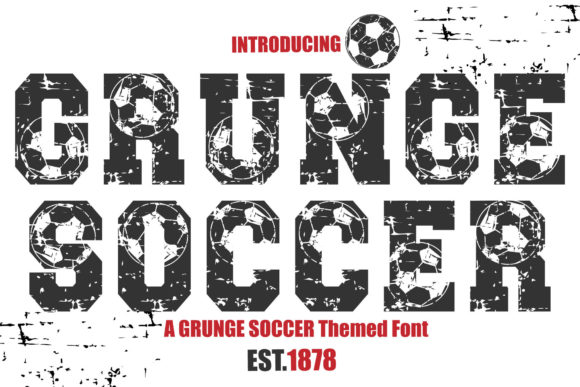
Introducing Grunge Soccer Font, the ultimate choice for all your sports-related designs! Created by the talented KtwoP, this bold and assertive display font is here to elevate your creative projects to new heights. With its sharp and cool appearance, Grunge Soccer Font exudes power and passion, capturing the essence of the game.
When it comes to designing banners, posters, or any sports-related graphics, you deserve nothing but the best. That's where Grunge Soccer Font shines. Its captivating and eye-catching appeal is guaranteed to grab attention and leave a lasting impression on your audience. Let your message roar with intensity as this font brings your words to life.
Unleash your creativity with Grunge Soccer Font and explore its endless possibilities. Whether you're working on a football championship poster, a basketball team's merchandise, or a soccer-themed website, this font has got you covered. Its versatility allows you to experiment with different layouts, sizes, and colors, ensuring each design stands out from the crowd.
But what truly sets Grunge Soccer Font apart is its ability to evoke emotions. As soon as you lay eyes on it, you can almost hear the crowd cheering, feel the adrenaline rush, and sense the competitive spirit. This font encapsulates the energy and excitement of sports, making it the perfect choice to ignite enthusiasm in your audience.
With its extensive collection of characters, Grunge Soccer Font offers you the freedom to personalize your designs. From uppercase letters to numerals and punctuations, this font provides everything you need to convey your message effectively. Let your creativity flow as you experiment with different letter combinations and create stunning compositions that captivate and engage.
Don't settle for mediocre fonts that fail to convey the essence of your sports-themed designs. Choose Grunge Soccer Font and elevate your creativity to the next level. Whether you're a professional designer, a passionate sports enthusiast, or someone looking to add a touch of excitement to their projects, this font is the perfect companion.